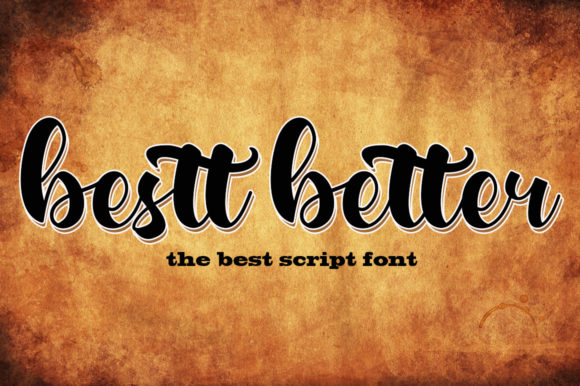
The Ultimate Guide to Bestt Better Font: Elevate Your Designs with Elegance
I’ll never forget the time I was working on a branding project for a luxury fashion label. My client wanted a font that exuded sophistication and glamour, but I was struggling to find the perfect fit. That’s when I stumbled upon Bestt Better, a chic script font that instantly caught my eye. In this article, I’ll share my experience with Bestt Better, its features, and how to make the most of it in your designs.
An Honest Review of Bestt Better
Bestt Better is a versatile script font that can be used in a wide range of applications, from labels and t-shirts to promotional banners and magazines. Here’s what I love about it:
• ✨ Elegant and sophisticated design
• 💫 Supports OpenType features, glyphs, and stylistic alternates
• 🎨 Works well with both digital and print media
While Bestt Better is an excellent font, it’s not without its quirks. Here are a few things to keep in mind:
• 🤔 Some characters may require manual kerning for optimal spacing
• ⚠️ Limited availability of certain special characters
The Story Behind Bestt Better
Bestt Better was designed by a team of typographers who aimed to create a font that would exude elegance and sophistication. Inspired by classic calligraphy and modern digital design, Bestt Better is a unique and versatile font that’s perfect for a wide range of applications.
What is Bestt Better font? Bestt Better is a chic script font designed for use in a variety of applications, from labels and t-shirts to promotional banners and magazines.
Is Bestt Better suitable for body text? While Bestt Better is highly legible, it’s best suited for headlines, titles, and short paragraphs. For longer body text, consider using a serif or sans-serif font.
Does Bestt Better support OpenType features? Yes, Bestt Better supports OpenType features, including glyphs, stylistic alternates, and swashes.